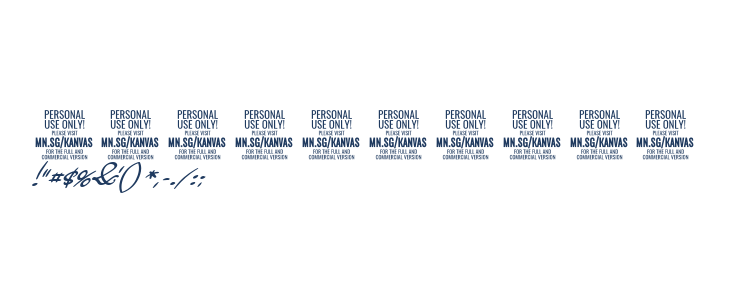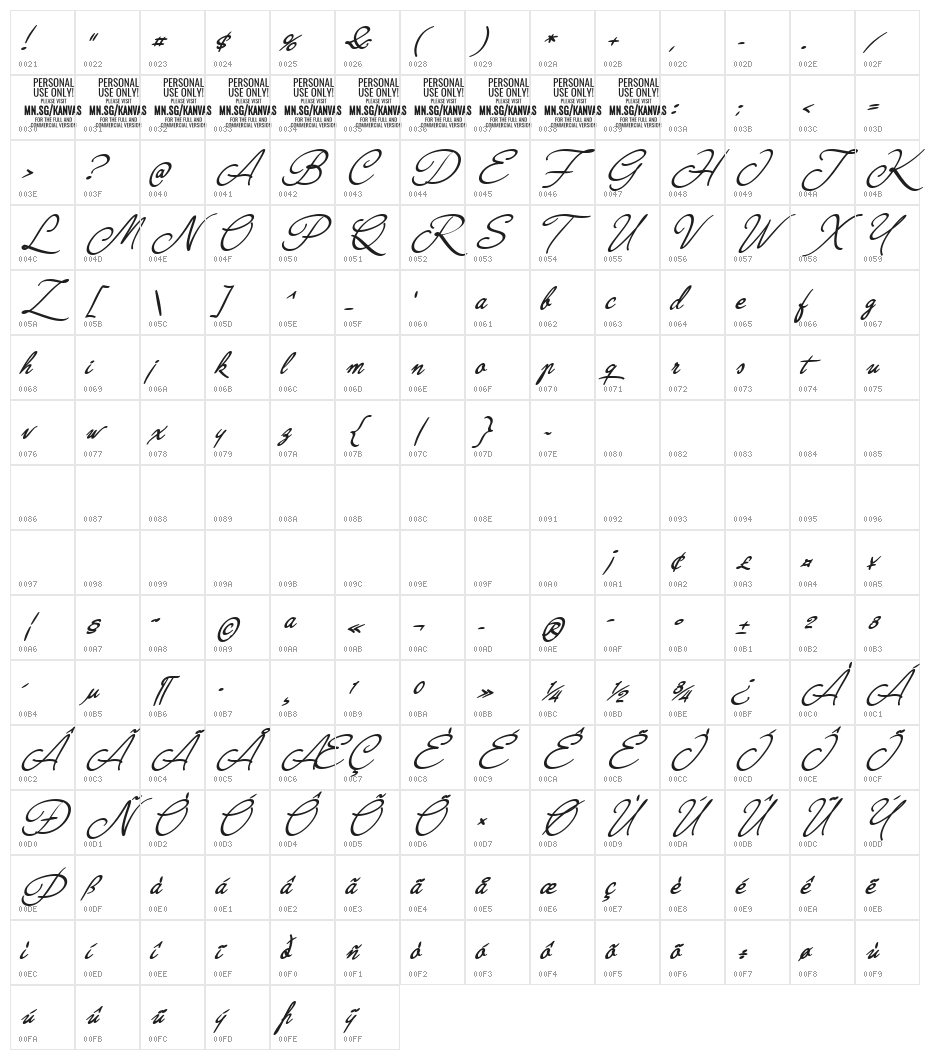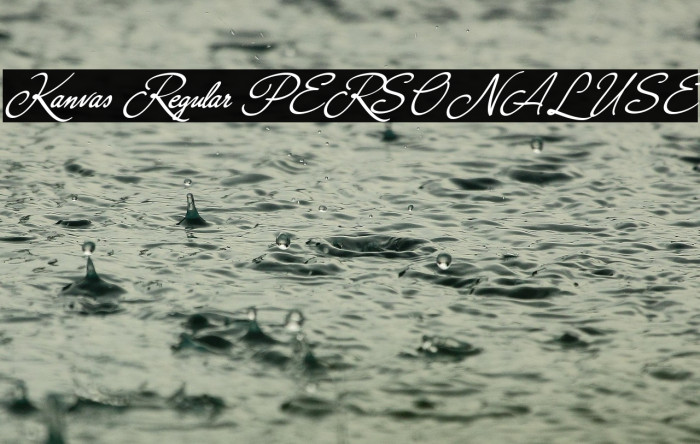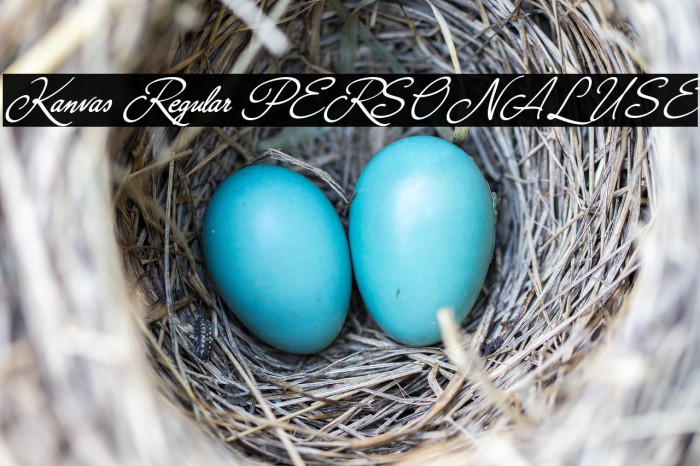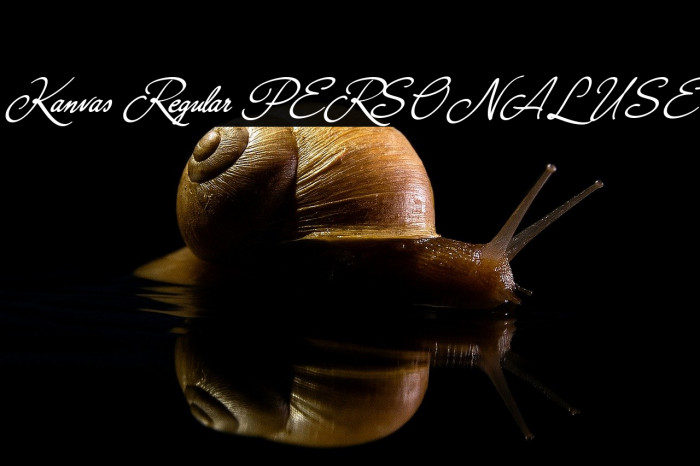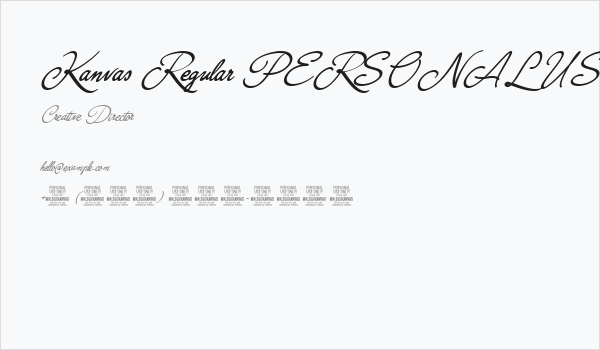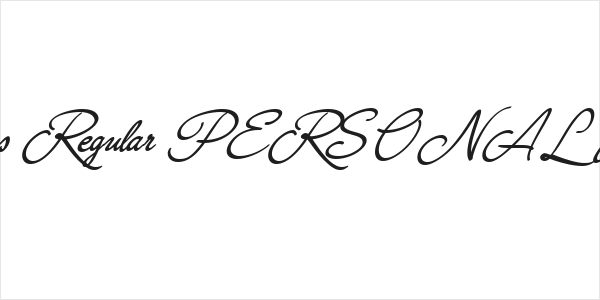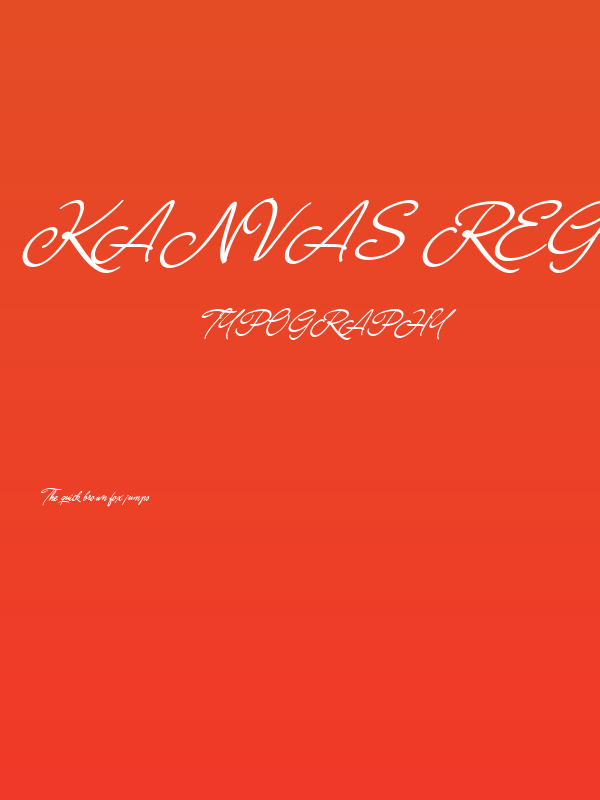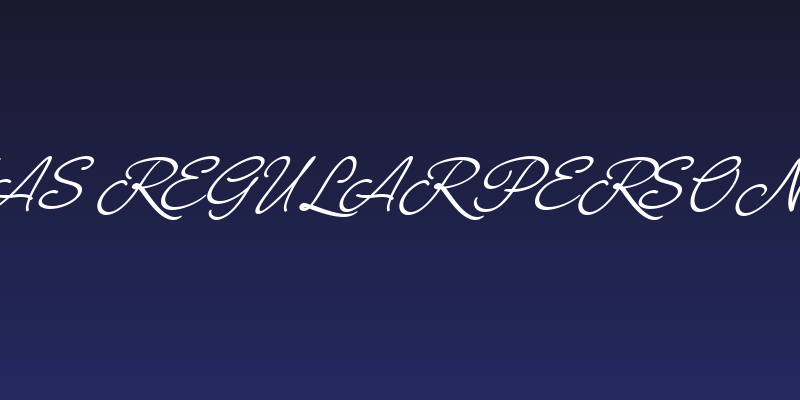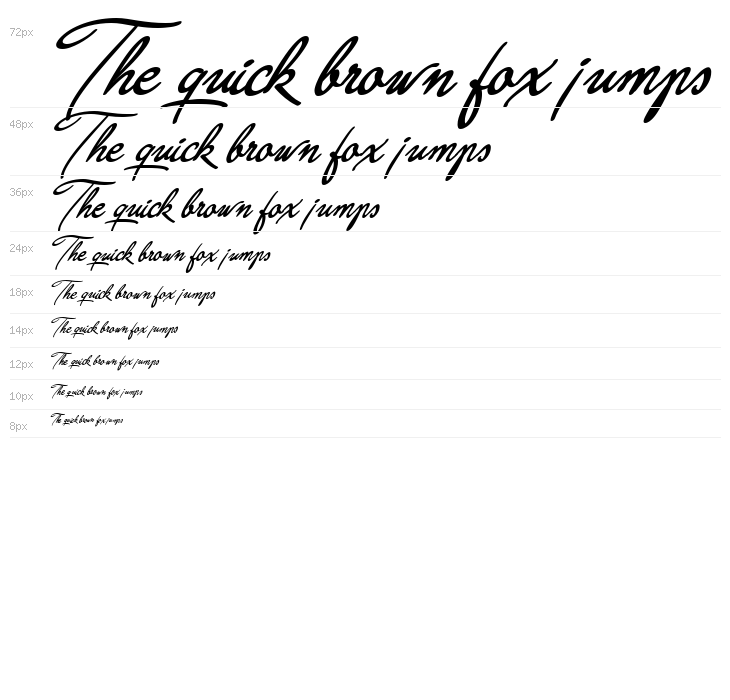
Kanvas Regular PERSONAL USE Font
Kanvas Regular PERSONAL USE Description
This font exudes a dynamic and elegant script style, characterized by its fluid and cursive letterforms. The uppercase letters are particularly ornate, with sweeping curves and flourishes that give a sense of movement and grace. The lowercase letters maintain a consistent flow, complementing the uppercase with their slightly more restrained yet still expressive design. The numerals and special characters are crafted with the same attention to detail, ensuring a cohesive look across all elements. This font is ideal for projects that require a touch of sophistication and flair, such as invitations, branding, or editorial design.